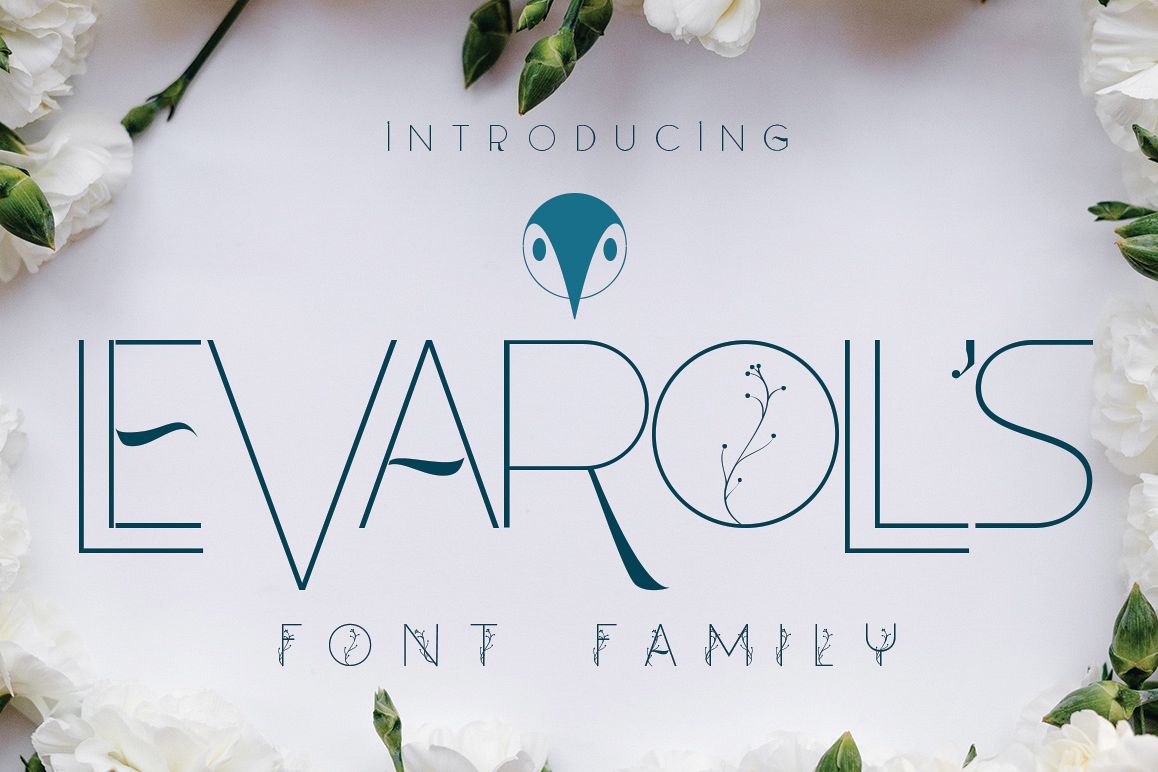
Leva Rolls
LevaRolls
levarolls regular
LevaRolls flower
LevaRolls cute
LEVA ROLLS
Font family cute sans serif elegant , and character cute use to logos simple